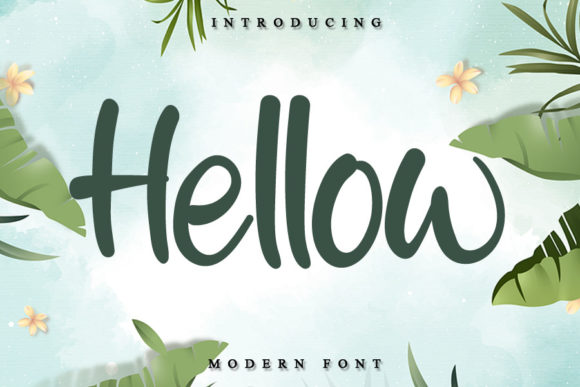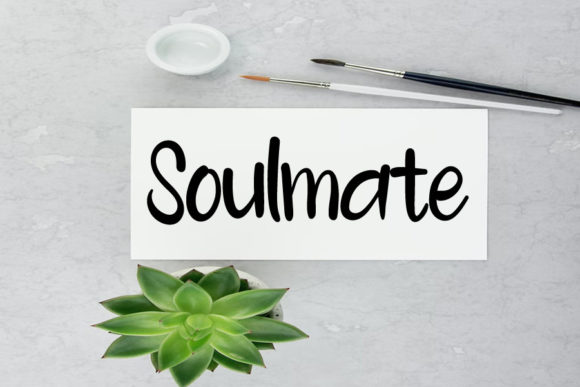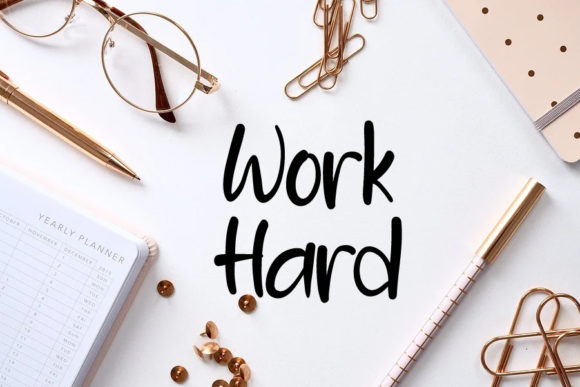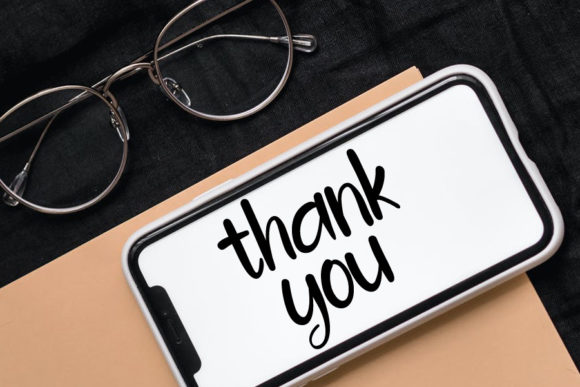
Hellow Font
About Hellow Font
Hellow This font is a fresh and beautiful font, good for your design purposes such as Youtube banners, Cover Logo Mockups, Wedding Invitations, Id Cards, Flayer, Crafts. By using this font your business will progress and develop. Apart from that this font is simple and unique.